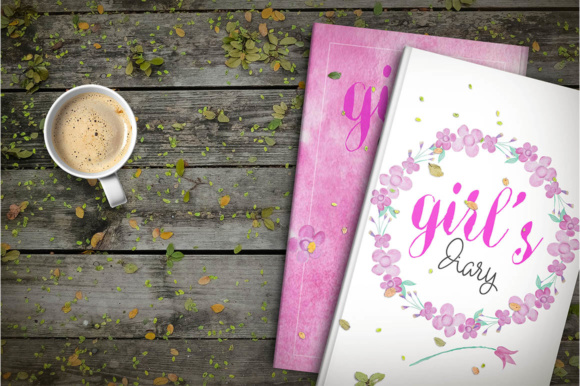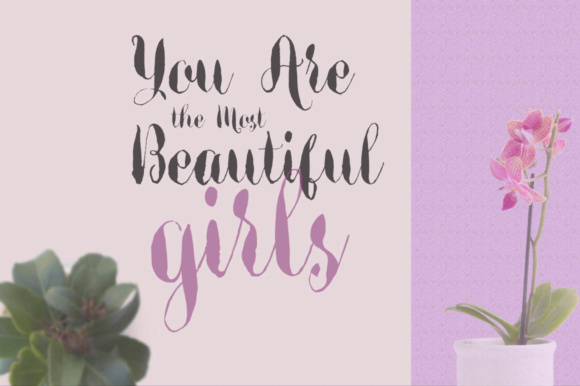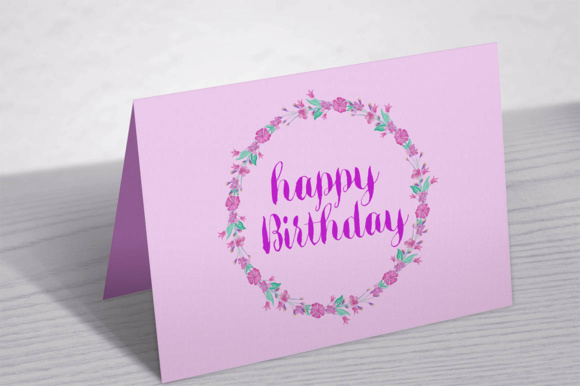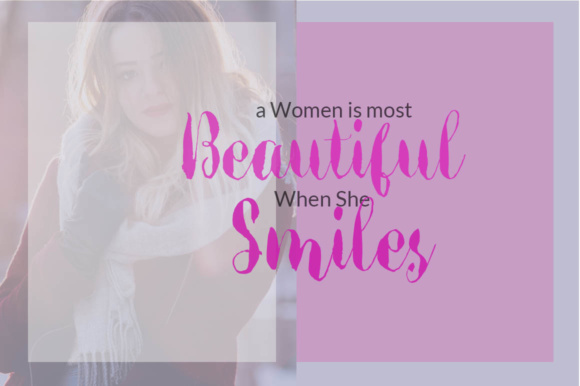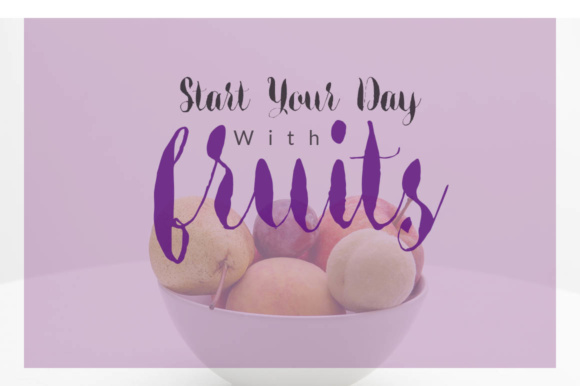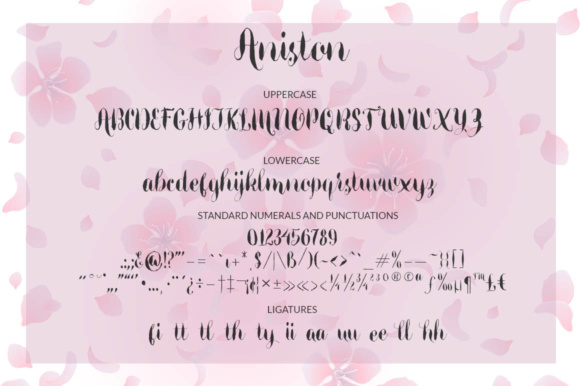
Introducing Aniston Font: The Ultimate Girly Script for Women-Oriented Projects
Are you a designer or crafter looking for a font that exudes femininity and elegance? Look no further than Aniston Font, a high-contrast script that is perfect for women’s and girls’ oriented projects. This beautiful font is designed to add a touch of sophistication and glamour to your designs, making it ideal for a wide range of applications.
What Makes Aniston Font So Special?
Aniston Font is an extremely girly font that is sure to capture the attention of your audience. Its high-contrast script design features bold lines and delicate flourishes, creating a stunning visual effect that is both feminine and elegant. The font’s unique design makes it perfect for use in projects that require a touch of glamour and sophistication, such as:
- Women’s fashion and beauty branding
- Girls’ party invitations and decorations
- Feminine packaging and product design
- Wedding and event planning
Bonus Watercolors: Take Your Designs to the Next Level
But that’s not all – Aniston Font also comes with bonus watercolors that can be used in conjunction with the font to create stunning results. The watercolors add a touch of whimsy and romance to your designs, making them perfect for projects that require a more artistic and creative approach.
The bonus watercolors can be used to:
- Create beautiful backgrounds and textures
- Add a pop of color to your designs
- Illustrate feminine and delicate illustrations
Why Choose Aniston Font?
So why choose Aniston Font for your next project? Here are just a few reasons:
- Unique and feminine design: Aniston Font is a one-of-a-kind font that is sure to make your designs stand out from the crowd.
- High-contrast script: The font’s high-contrast script design makes it easy to read and visually appealing.
- Bonus watercolors: The included bonus watercolors add an extra creative element to your designs.
- Easily customizable: Aniston Font is easy to customize, making it perfect for a wide range of applications.
Tips for Using Aniston Font
Here are a few tips for using Aniston Font in your designs:
- Pair with bold colors: Aniston Font looks stunning when paired with bold and bright colors.
- Use with feminine illustrations: The font pairs perfectly with feminine illustrations and delicate graphics.
- Experiment with different sizes: Aniston Font can be used in a variety of sizes, from large headings to smaller text.
In conclusion, Aniston Font is a beautiful and feminine script font that is perfect for women’s and girls’ oriented projects. Its high-contrast design and bonus watercolors make it a versatile and creative tool for designers and crafters. Whether you’re looking to create stunning branding, packaging, or invitations, Aniston Font is the perfect choice.